What is a Royal Font?
Royal style fonts are fonts that are designed to have a regal, elegant, and refined feel, often associated with the monarchy or aristocracy. Some characteristics of royal style fonts include:
- Serif: Royal style fonts are typically serif fonts, with small lines or serifs at the end of strokes that give them a formal and sophisticated look.
- Ornate and embellished: These fonts can have ornate and embellished designs, with intricate details such as flourishes, swashes, and decorative elements that add to their elegant and refined feel.
- Symmetrical: Royal style fonts often have symmetrical shapes, with letters that are well-proportioned and balanced.
- Capital letters: Many royal style fonts use only capital letters, which can give them a commanding and powerful presence.
- Classic and timeless: These fonts have a classic and timeless feel, reminiscent of traditional calligraphy and lettering.
- Limited variation: Royal style fonts often have limited variation in stroke width, giving them a consistent and uniform appearance.
Best Royal Fonts in Canva
1. Aleo
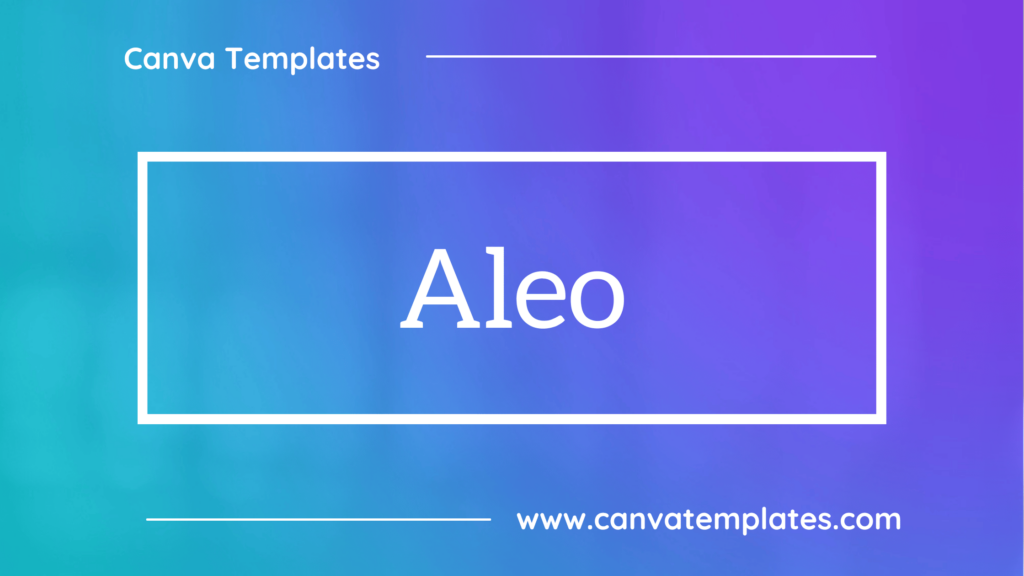
Aleo is a bold, industrial-style font with thick lines and a rugged, vintage feel.
2. Alta
Alta is a clean, modern sans-serif font with simple, geometric shapes and a minimalist look.
3. Cinzel Decorative
Cinzel Decorative is a bold, decorative font with elaborate serifs and a classic, ornate look, resembling ancient Roman inscriptions.
4. Dream Avenue
Dream Avenue is a delicate, script font with elegant, flowing curves and a romantic, dreamy feel.
5. Jerin
Jerin is a bold, modern sans-serif font with clean lines and a slightly futuristic feel.
6. Lovelace Text
Lovelace Text is a playful, hand-drawn font with a whimsical feel, resembling handwritten notes.
7. Merriweather
Merriweather is a versatile, classic font with traditional serifs and a timeless, elegant look.
8. Versailles
Versailles is a fancy, ornate font with elaborate serifs and a classic, elegant look.
9. Ovo
Ovo is a bold, modern sans-serif font with clean lines and a slightly rounded, friendly feel.
10. Tan Twinkle
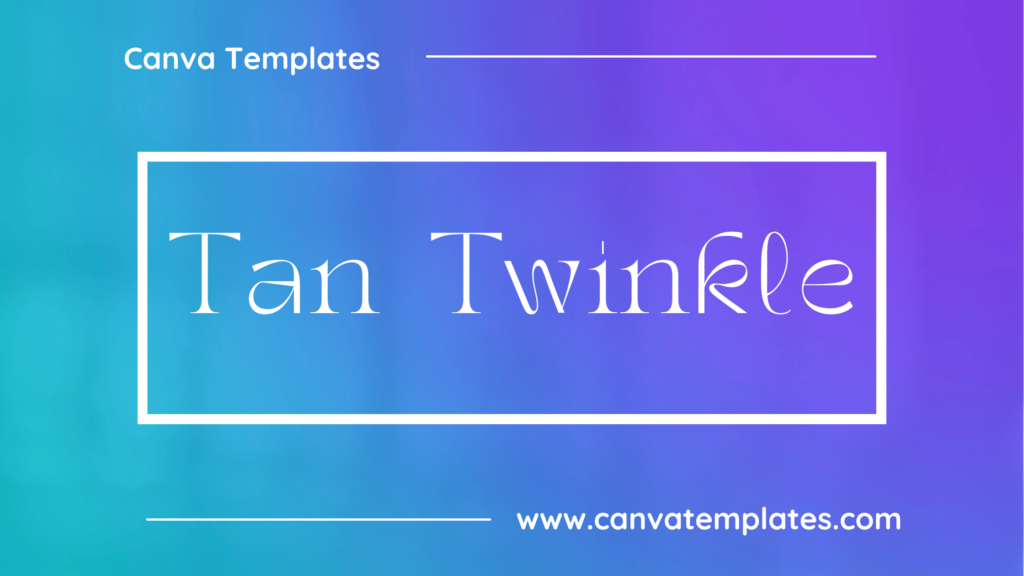
Tan Twinkle is a delicate, handwritten font with a whimsical, fairy tale feel, resembling twinkling stars.